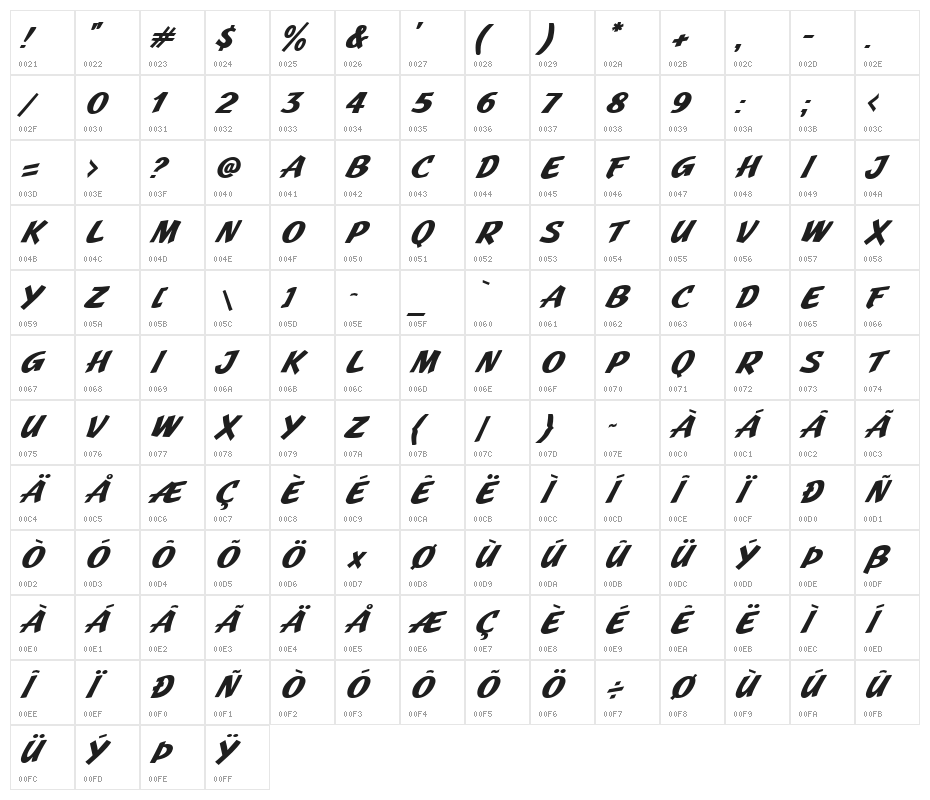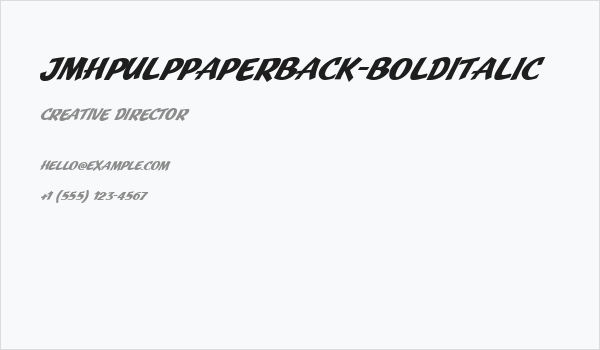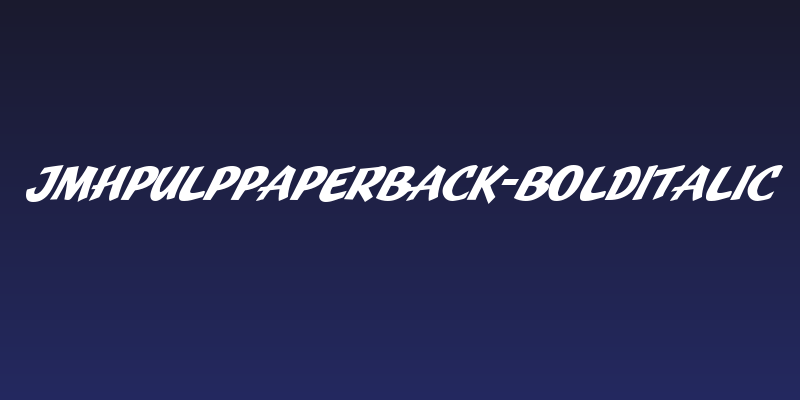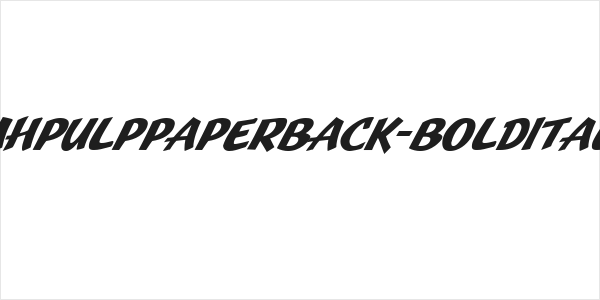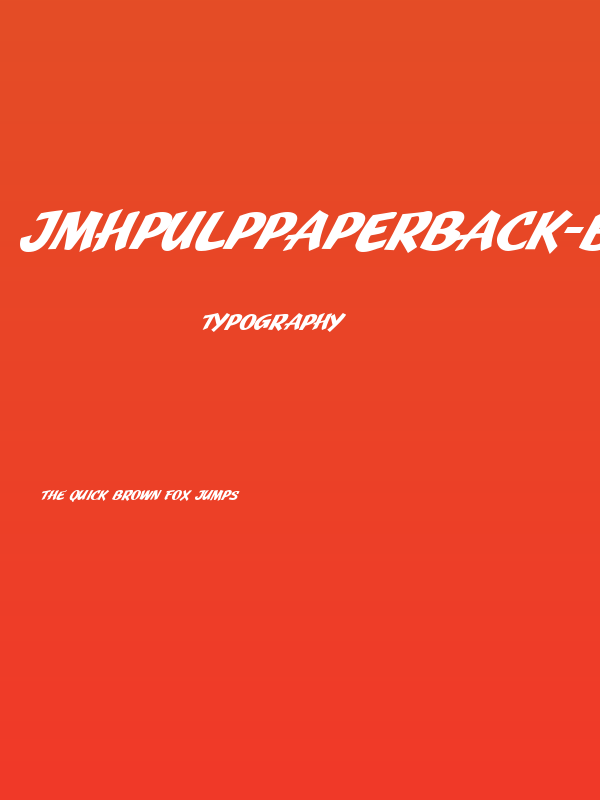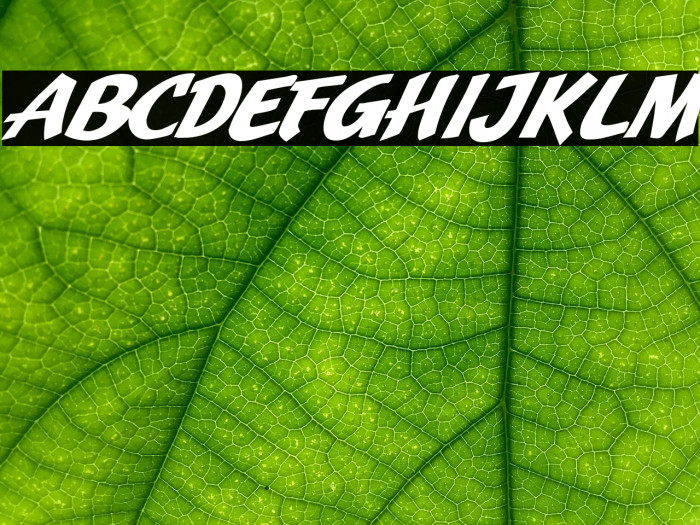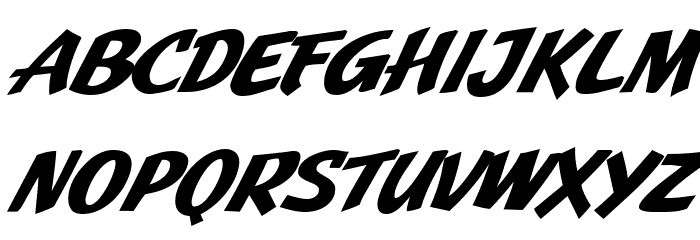
JMHPulpPaperback-BoldItalic Font
JMHPulpPaperback-BoldItalic Description
This font features a bold and dynamic style with a strong italic slant, creating a sense of motion and energy. The characters are thick and robust, with sharp edges and a slightly condensed form. The strokes are consistent in weight, providing a uniform appearance across all characters. This font's boldness and slant make it particularly eye-catching, suitable for making a strong visual impact. The numerals and special characters maintain the same bold and italicized characteristics, ensuring consistency throughout the typeface.
| Proposed Projects | Ideal for projects requiring a strong visual impact, such as posters, headlines, branding, and advertising materials. |